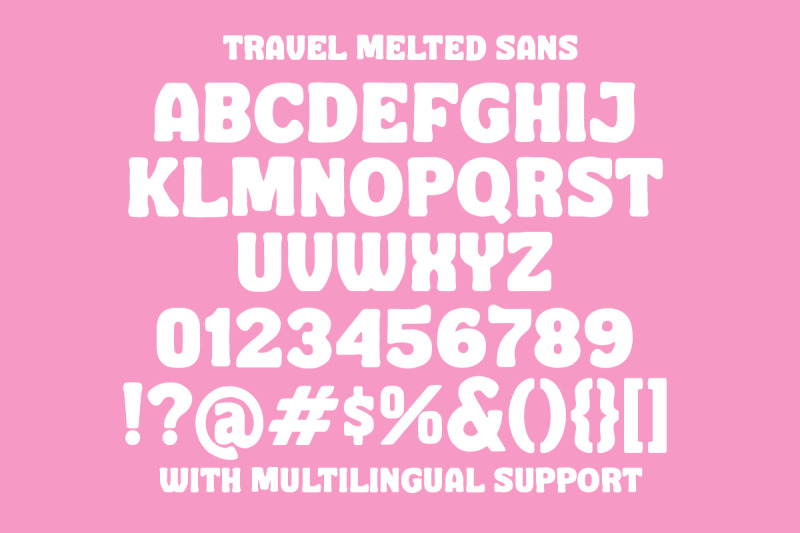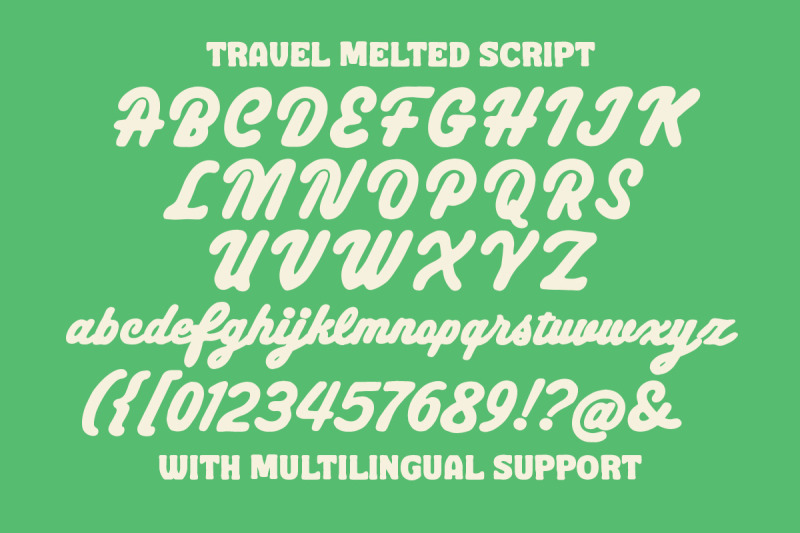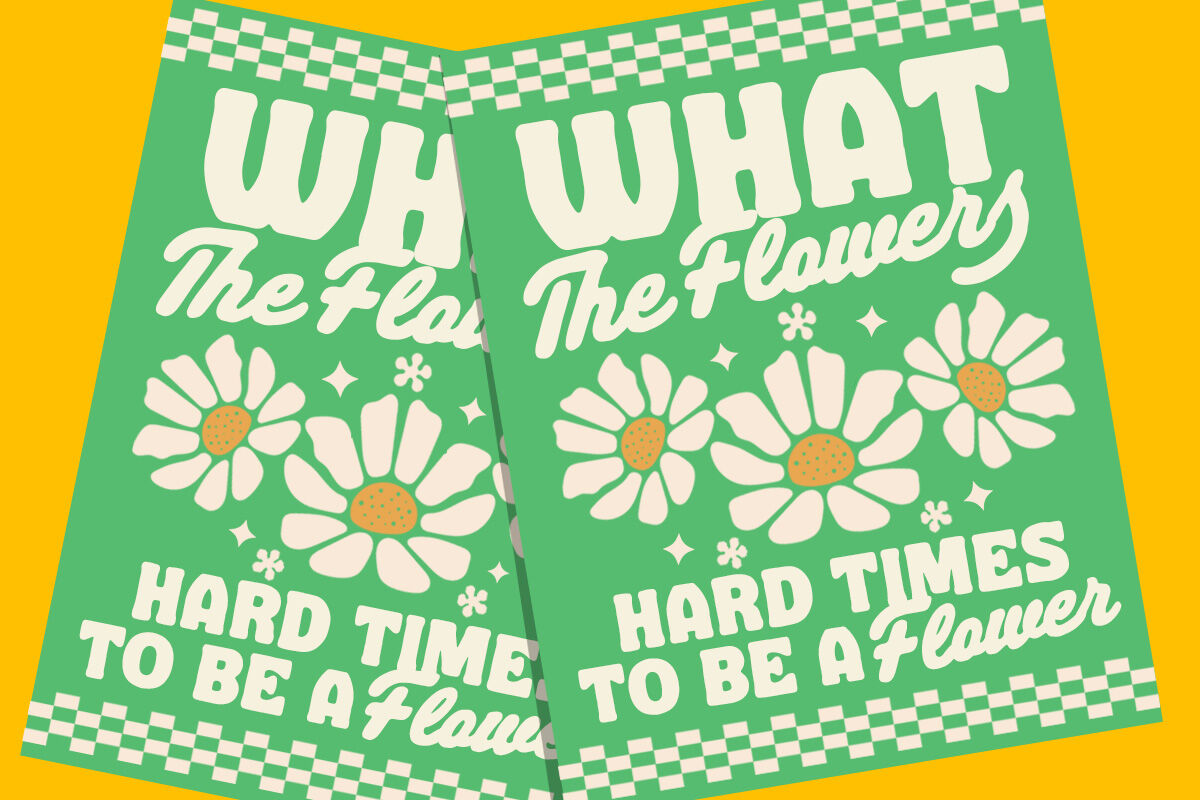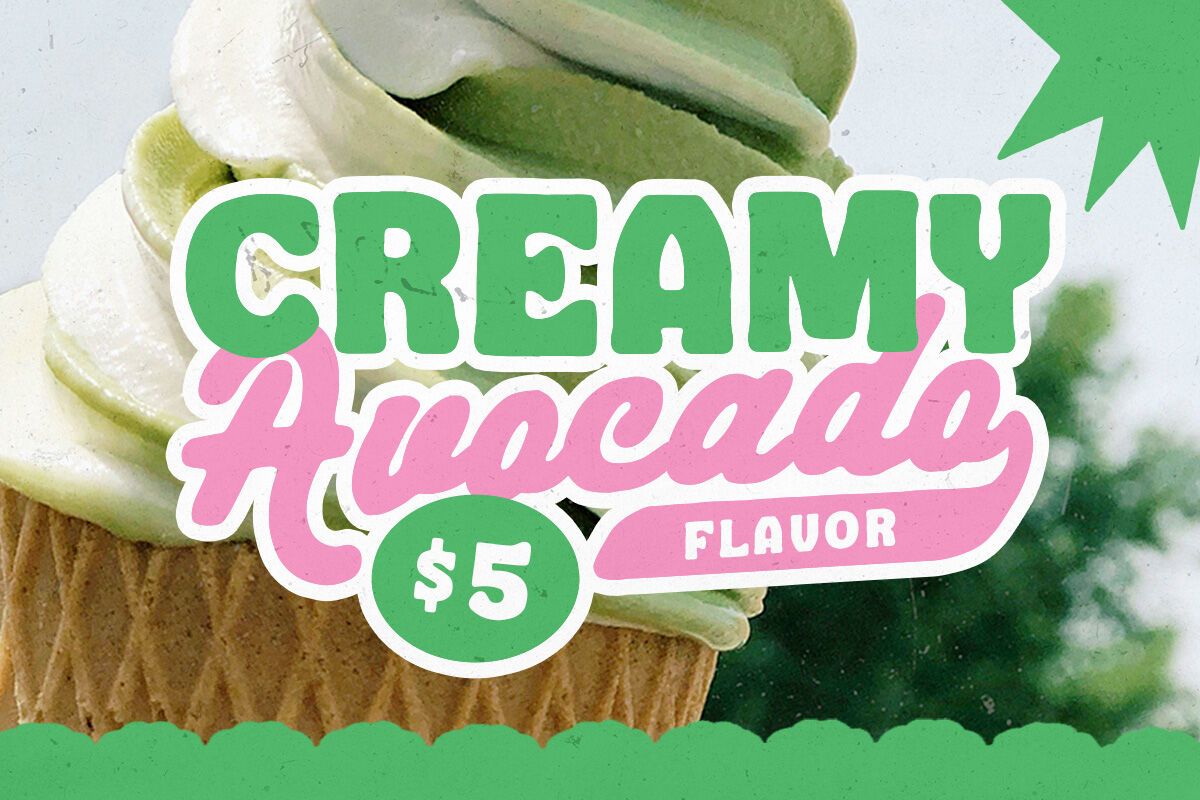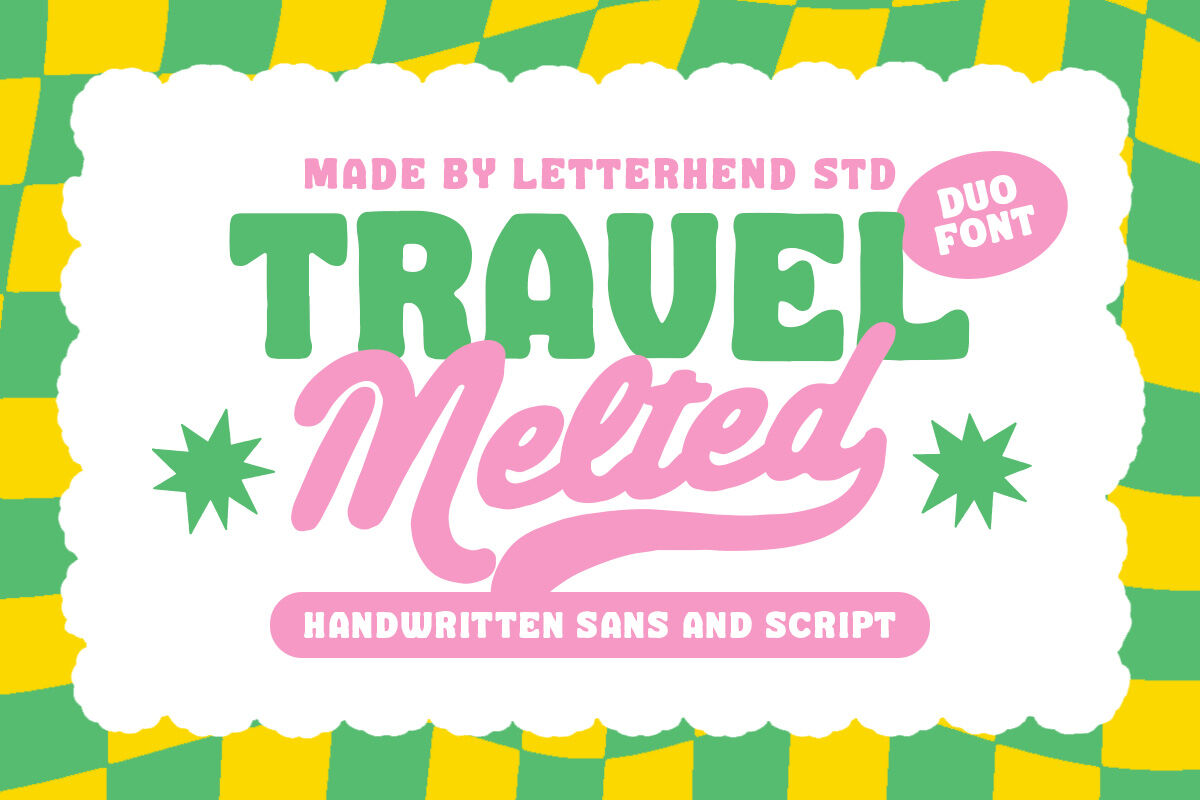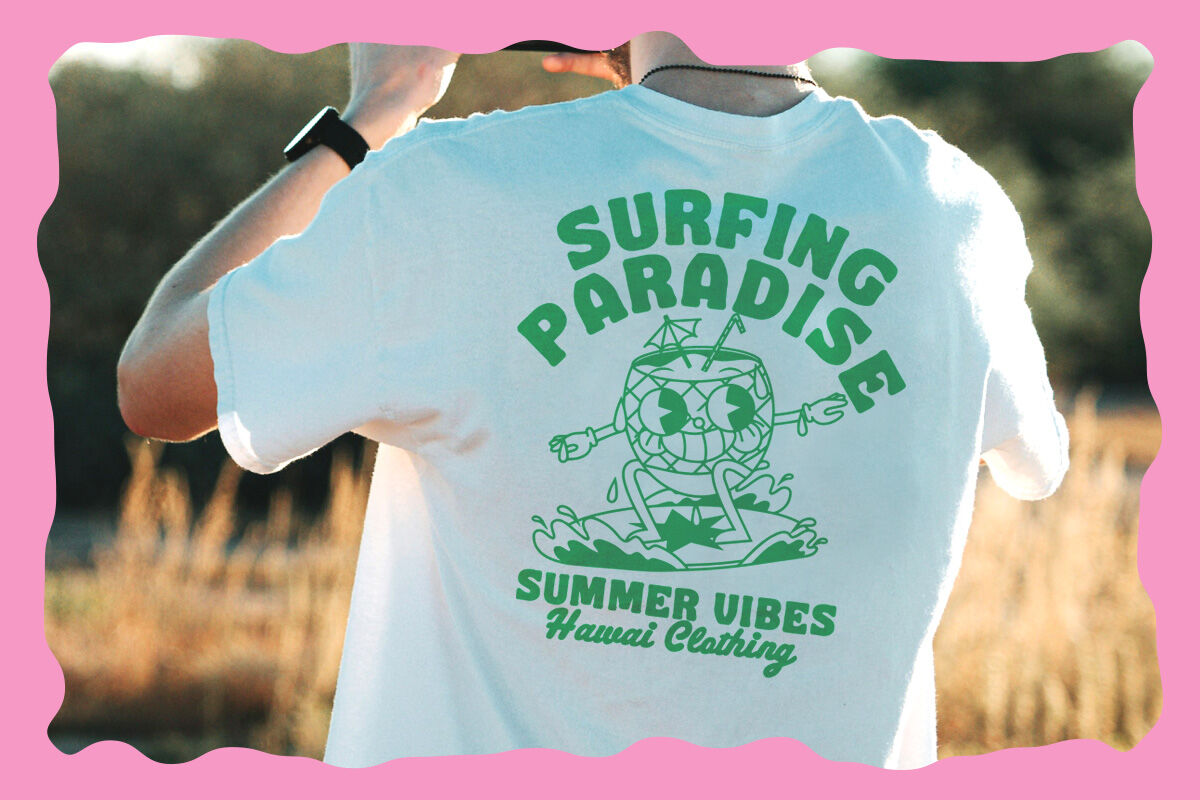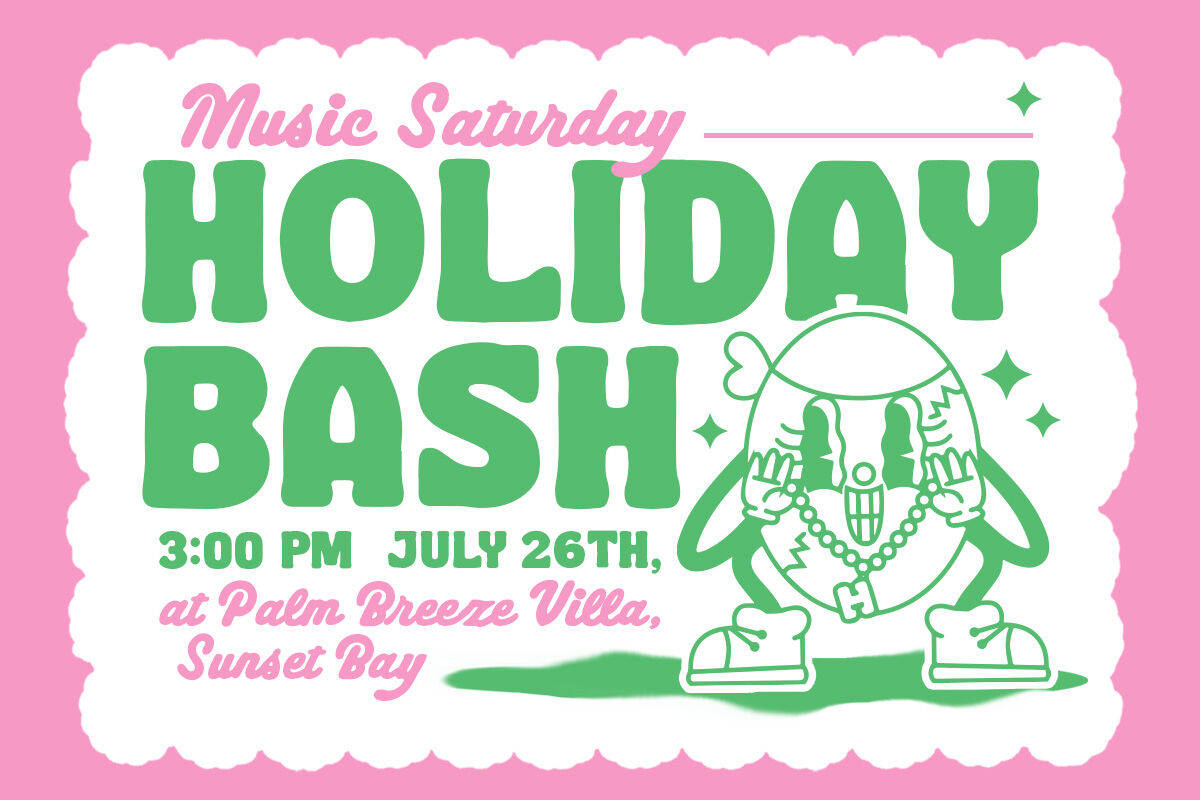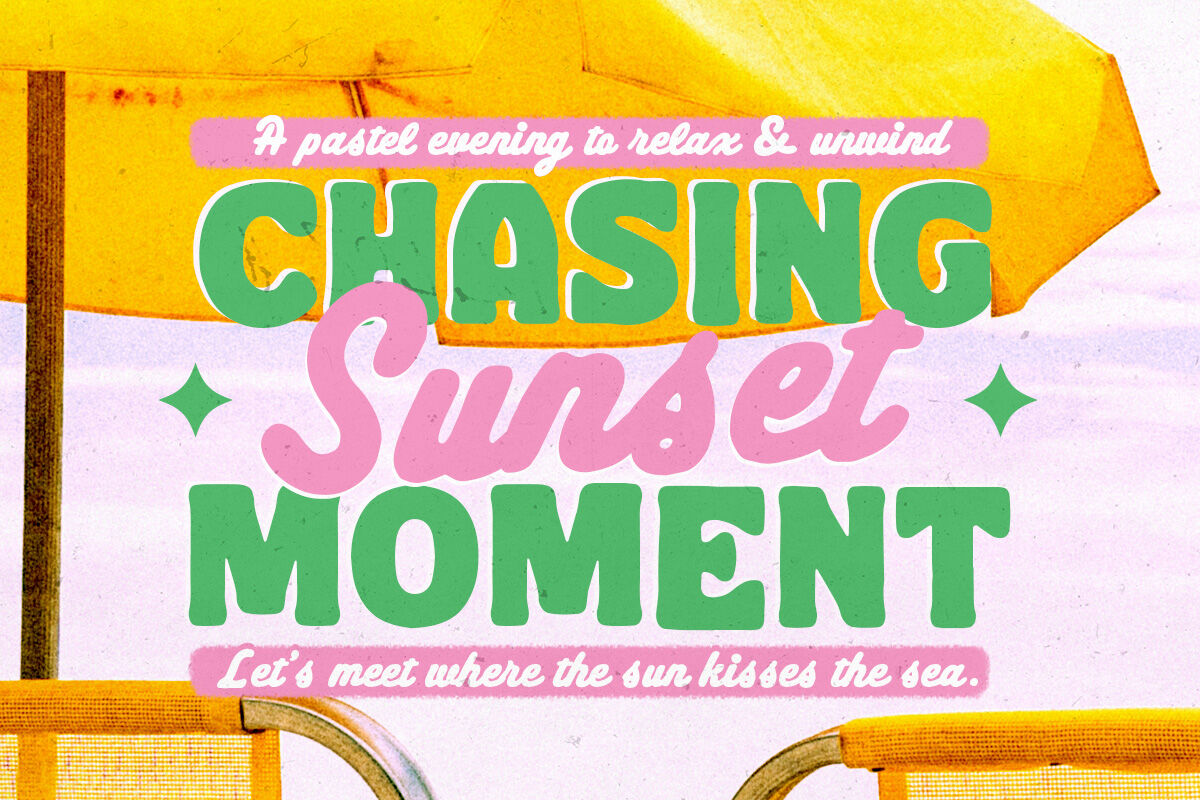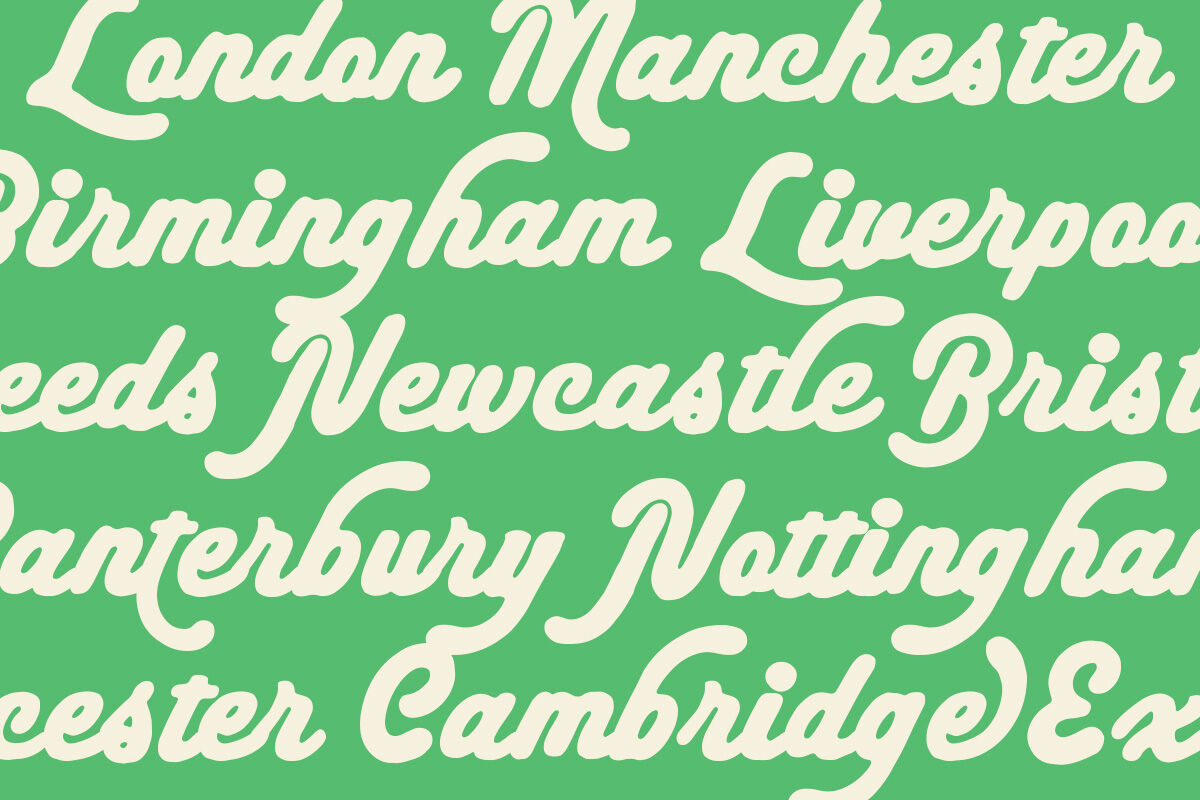
Travel Melted is a playful duo font combining a bold handwritten sans with a smooth script, perfect for designs that want to feel fun, quirky, and full of character. Its chunky shapes and flowing script style make it great for posters, packaging, social media, merchandise, or anything that needs a bright, cheerful pop. The mix of casual sans and retro-inspired script gives it versatility while keeping the vibe lighthearted, friendly, and effortlessly eye-catching.
Uppercase & lowercase
Numbers and punctuation
Alternates/Ligatures
Multilingual Support